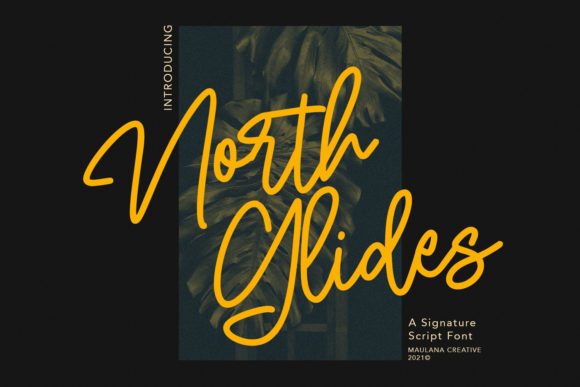
Step into the realm of elegance and charm with North Glides Font, a script masterpiece that captivates the senses and ignites creativity. This enchanting font family, brought to life by Maulana Creative, is a testament to the beauty of simplicity, adorned with graceful curves and flowing strokes that evoke a timeless allure.
North Glides stands as the epitome of versatility, seamlessly adapting to a vast array of design concepts. Whether you seek to create captivating address signs that exude a touch of personal flair, heartfelt invitations that radiate warmth and elegance, or enchanting logos that leave a lasting impression, North Glides is your muse, your steadfast companion in the pursuit of design excellence.
Unleash your imagination and let North Glides guide you through a symphony of creative possibilities. Its delicate charm lends itself effortlessly to wedding stationery, adding a romantic touch to the most special day of your life. With North Glides, your words take flight, soaring on wings of artistry, carrying messages of love, joy, and celebration.
But North Glides is more than just a font; it's an experience, an invitation to embark on a creative journey where your ideas take center stage. As your fingers dance across the keyboard, let the gentle curves and whimsical strokes of North Glides inspire you, igniting a spark of creativity that sets your designs ablaze.